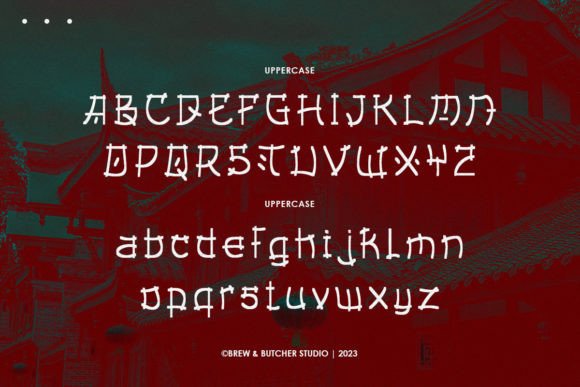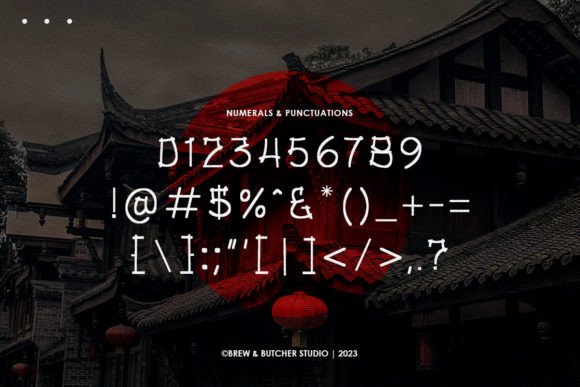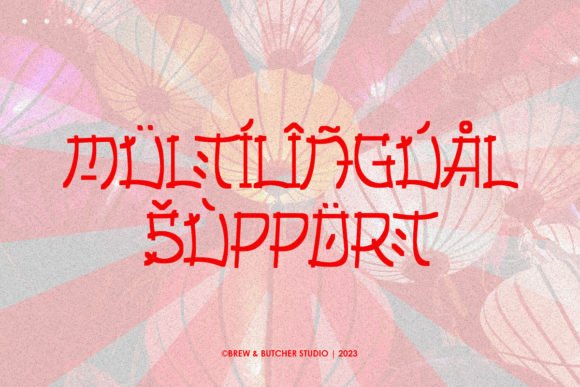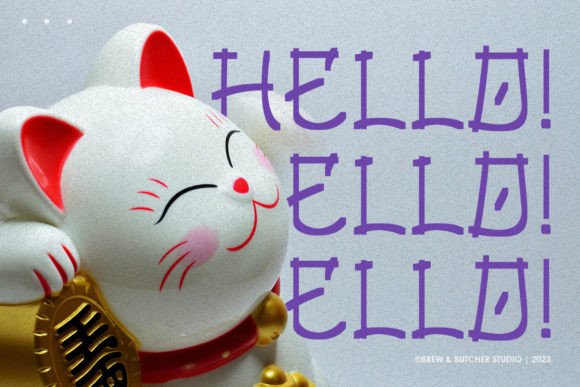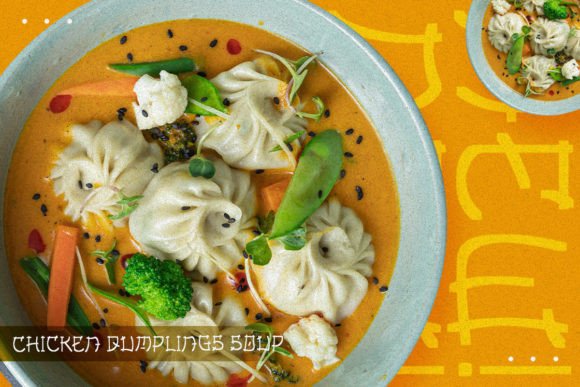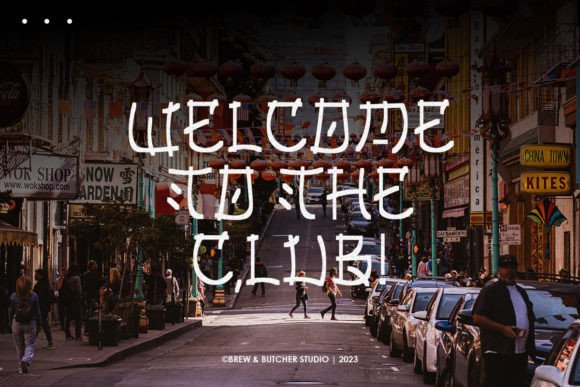
Discover the Unique Charm of Baoku Font: A Japanese-Inspired Masterpiece
In the world of typography, fonts play a crucial role in conveying the tone and personality of a brand or design. For designers and crafters looking to add a touch of cultural elegance to their work, Baoku Font is an exceptional choice. This Japanese-style font is inspired by the country’s rich culture and way of life, making it perfect for projects that require a unique and sophisticated look.
What is Baoku Font?
Baoku Font is a thoughtfully crafted typeface that embodies the essence of Japanese culture. Its stiff yet soft appearance, combined with smooth lines, creates a cultured vibe that is sure to captivate audiences. The font’s design is deeply rooted in traditional Japanese aesthetics, making it an excellent choice for designers seeking to incorporate an Asian flair into their work.
Characteristics of Baoku Font
Baoku Font boasts several distinctive characteristics that set it apart from other typefaces:
- Stiff yet Soft Appearance: Baoku Font’s unique blend of stiffness and softness creates a visually appealing contrast that adds depth to any design.
- Cultural Inspiration: The font’s design is inspired by Japanese culture and way of life, making it perfect for projects that require an Asian-inspired look.
- Smooth Lines: The font’s smooth lines and curves add a touch of elegance and sophistication to any design.
Best Use Cases for Baoku Font
Baoku Font is a versatile typeface that can be used in a variety of design projects, including:
- Headers and Headlines: Baoku Font’s bold and elegant appearance makes it perfect for headers and headlines that require a touch of sophistication.
- Posters and Flyers: The font’s unique design and cultural inspiration make it an excellent choice for posters and flyers that require a distinctive look.
- Banners and Landing Pages: Baoku Font’s smooth lines and elegant appearance make it perfect for banners and landing pages that require a professional and cultured look.
- Portfolios and Name Writing: The font’s unique design and cultural inspiration make it an excellent choice for portfolios and name writing that require a touch of elegance.
- Album Covers and Music-related Designs: Baoku Font’s bold and elegant appearance makes it perfect for album covers and music-related designs that require a sophisticated look.
Why Choose Baoku Font?
Baoku Font offers several benefits that make it an attractive choice for designers and crafters:
- Unique and Distinctive Design: Baoku Font’s cultural inspiration and unique design make it a standout typeface that can help designers differentiate their work.
- Elegant and Sophisticated Appearance: The font’s smooth lines and elegant appearance make it perfect for projects that require a professional and cultured look.
- Versatility: Baoku Font can be used in a variety of design projects, from headers and headlines to posters and flyers.
Baoku Font is a masterpiece of Japanese-inspired typography that offers a unique and sophisticated look for designers and crafters. Its cultural inspiration, elegant appearance, and versatility make it an excellent choice for a wide range of design projects. Whether you’re looking to add a touch of elegance to your work or create a distinctive brand identity, Baoku Font is an exceptional choice.